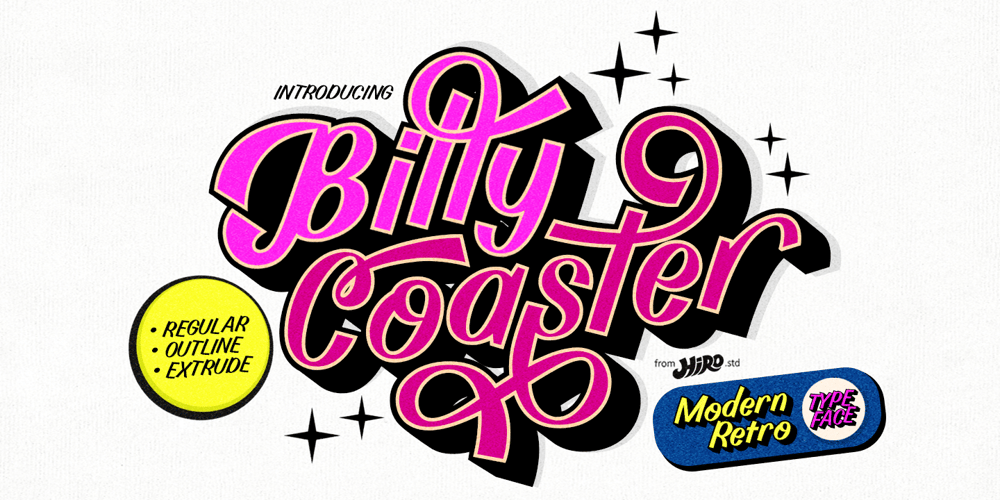
Billy Coaster Font Family was designed by Chairul Ashar and published by HIRO.std. Billy Coaster contains 3 styles and family package options. Billy Coaster is a Modern Retro Typeface. This font describes about stylist, modern retro, modern vintage, cool, and easy to use. Billy Coaster Typeface inspired from the modern retro typography and designs in late 80’s untill 90’s. FEATURES- Uppercase and Lowercase letters- Support Opentype Features- Stylistic Alternates- Numbering and Punctuations- PUA Encoded Characters- Multilingual Support- Works on PC or Mac- Simple Installation USEBilly Coaster Typeface works great in Logotype, Branding, Apparel, Poster, Magazine and any projects that need Modern Retro taste. Enjoy using!Thanks. HIRO.std